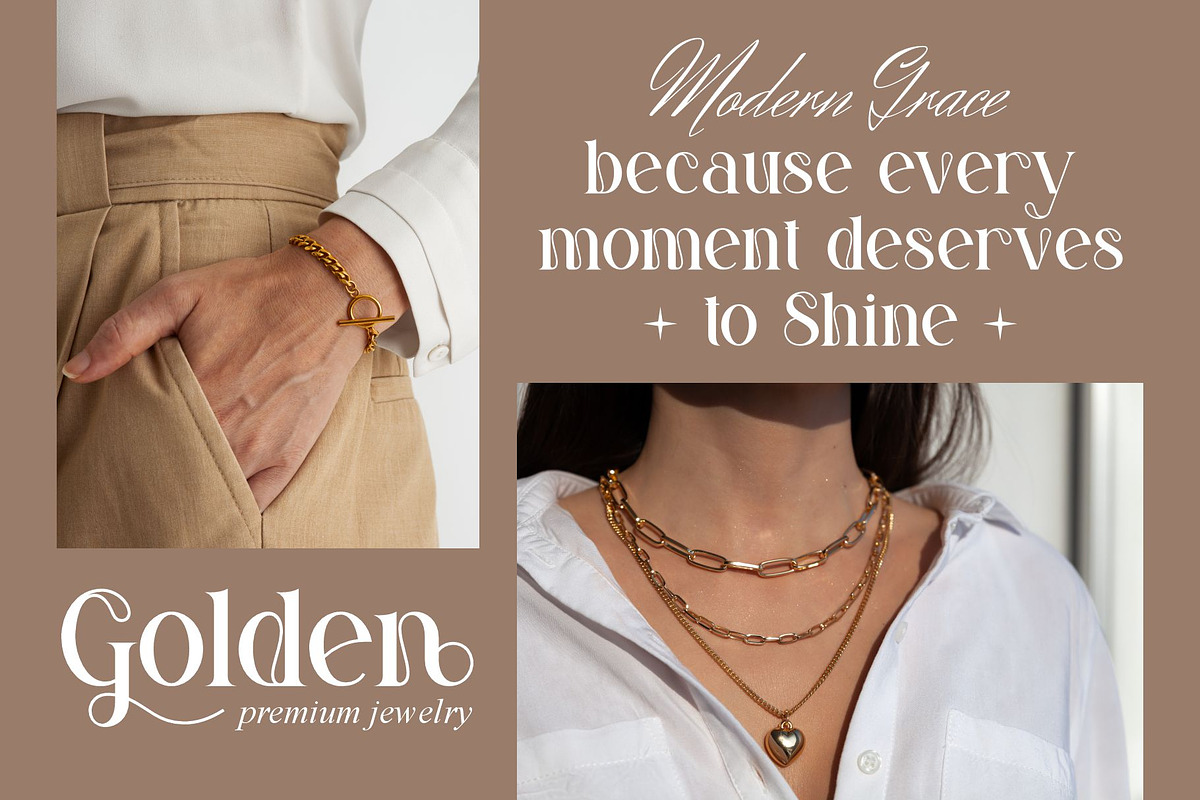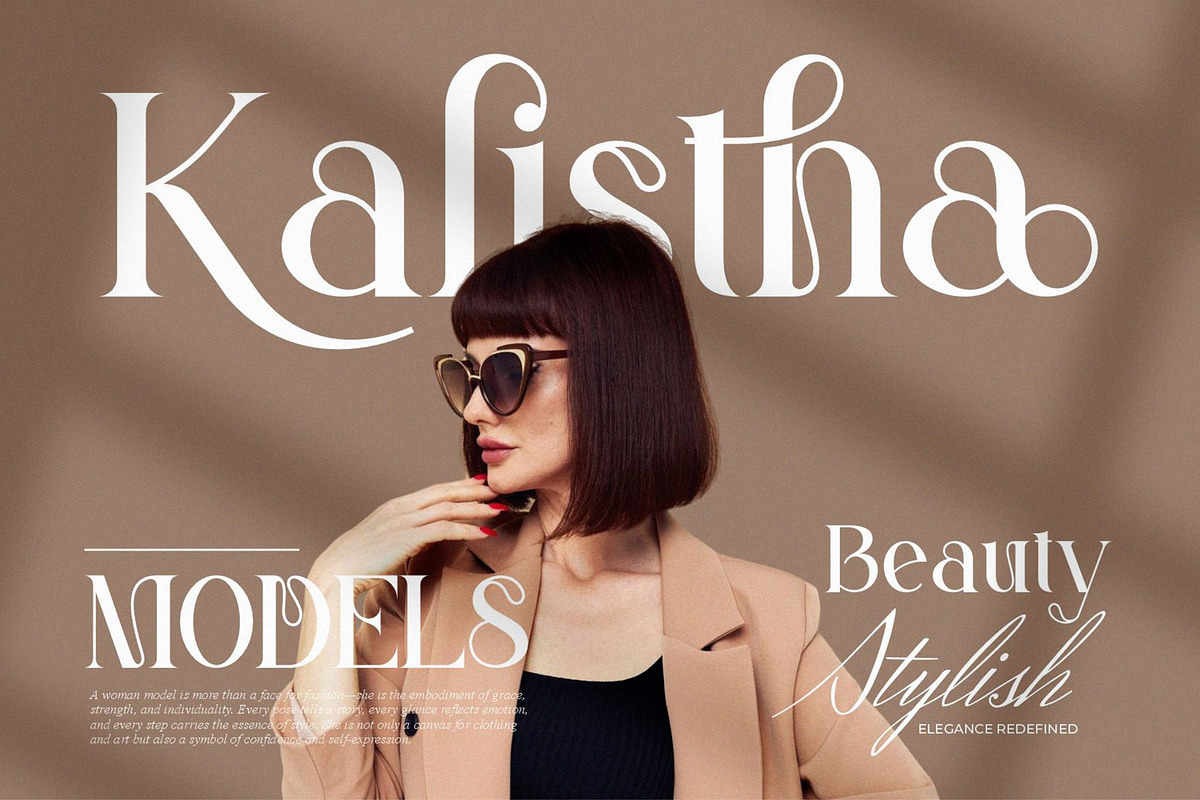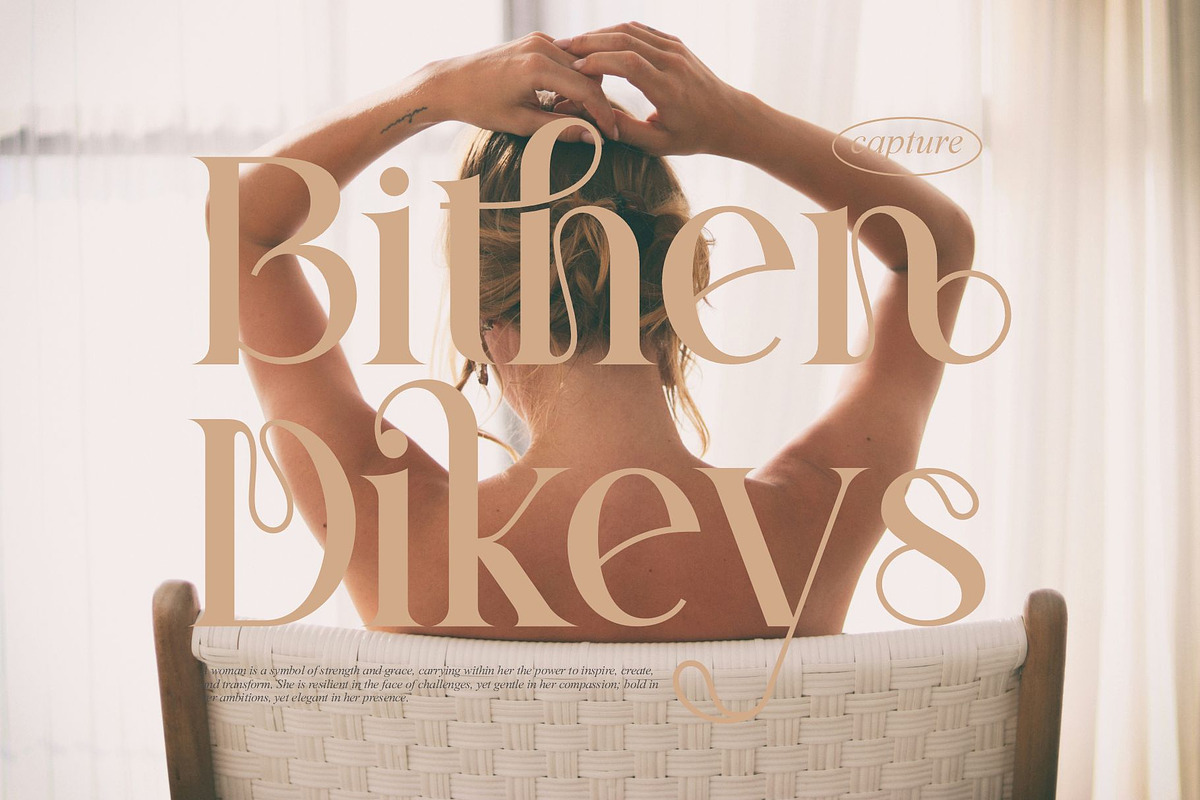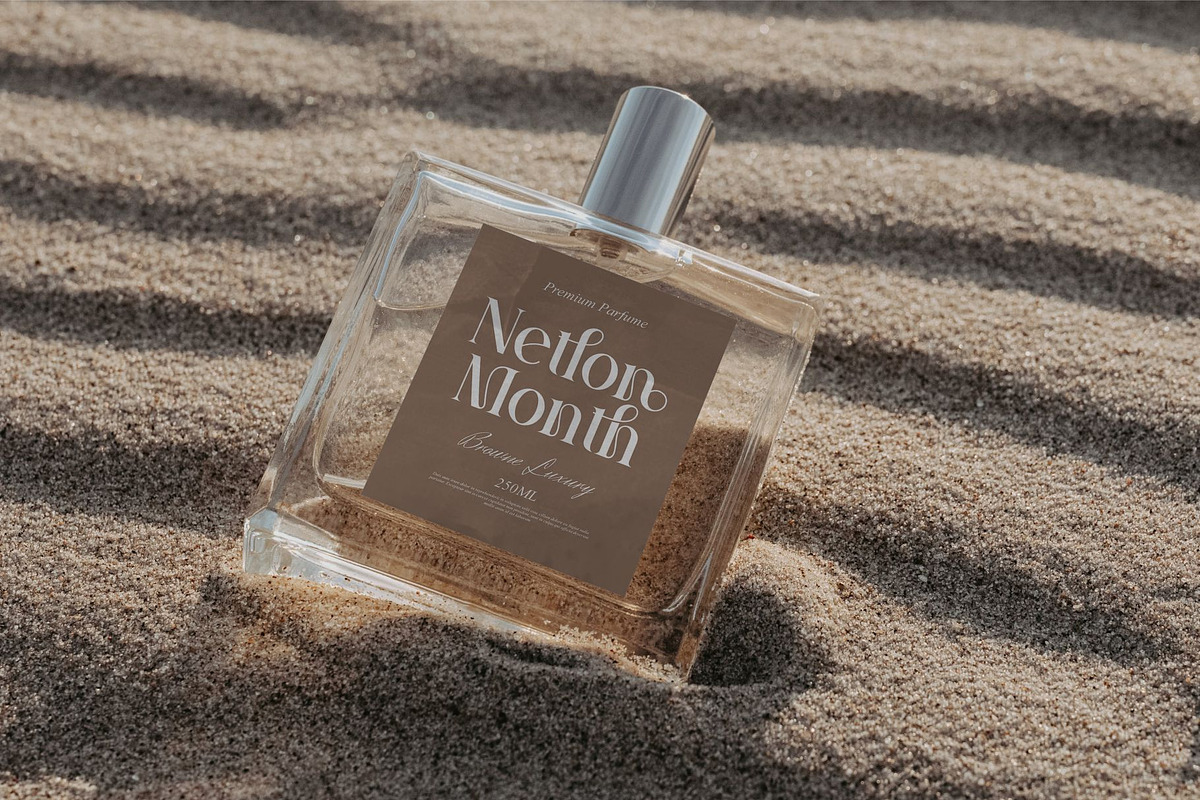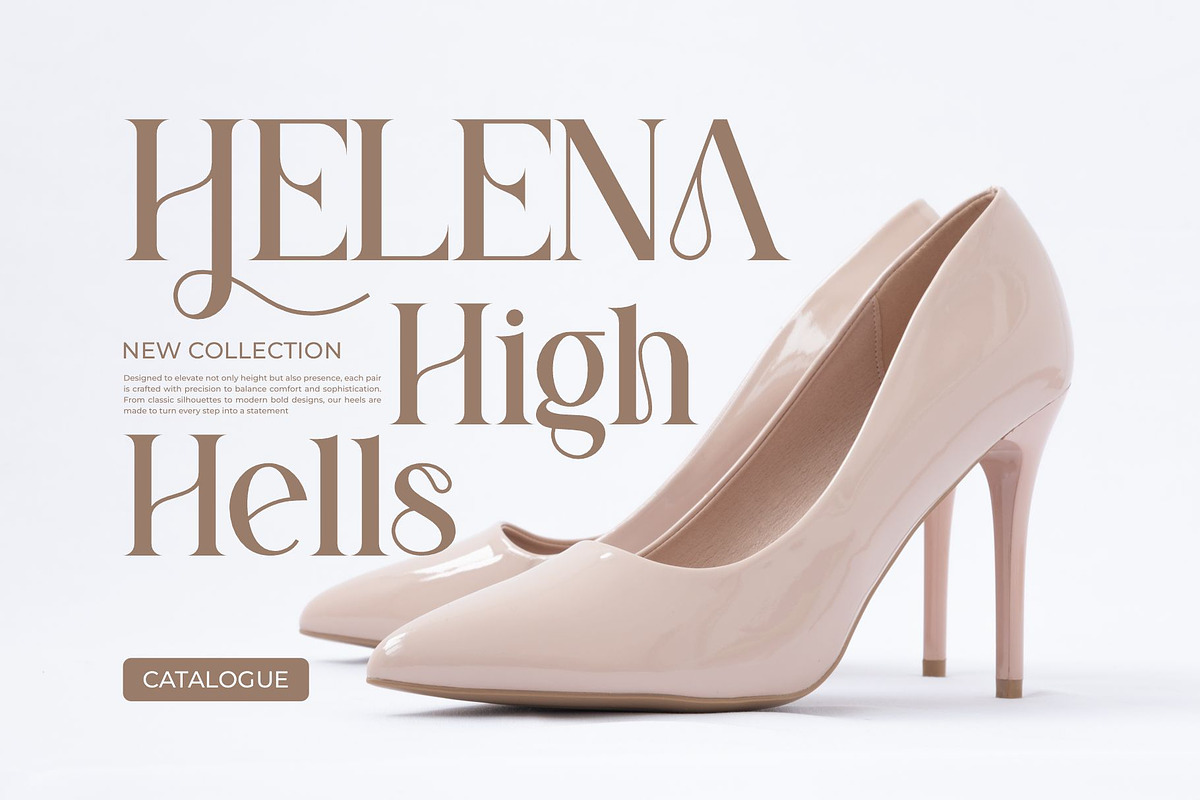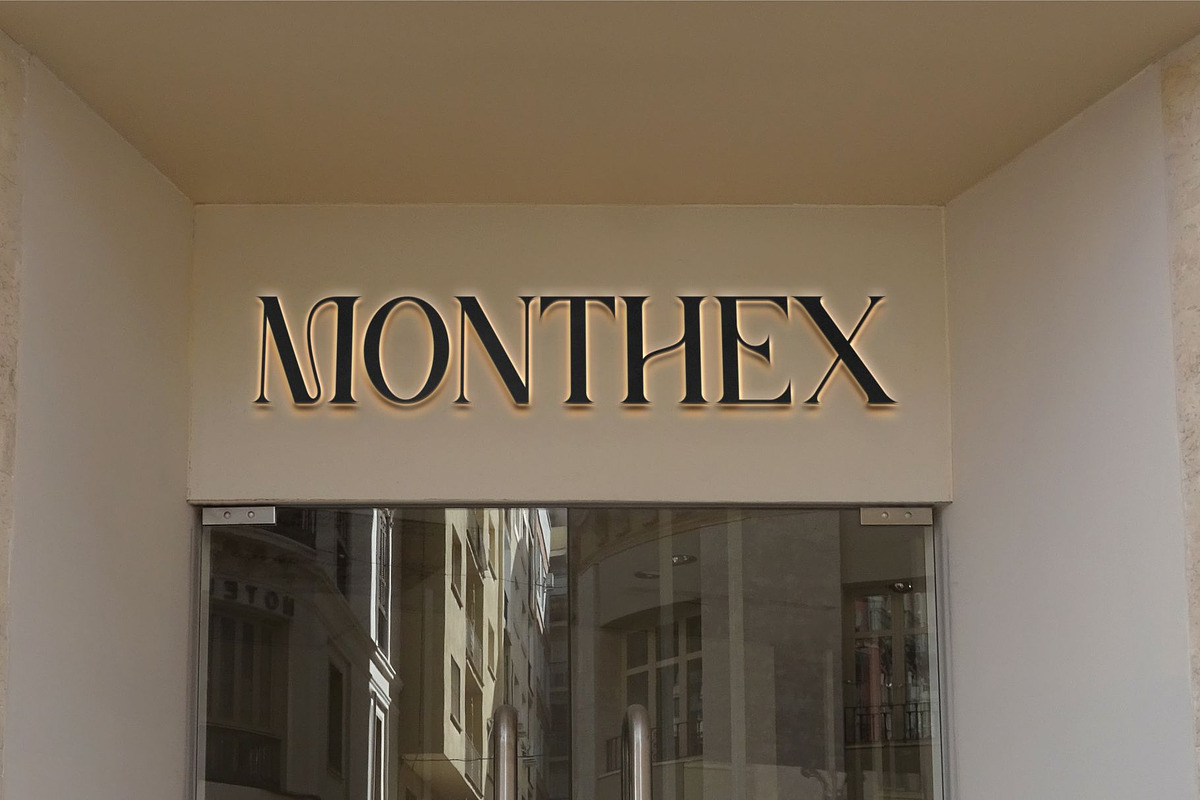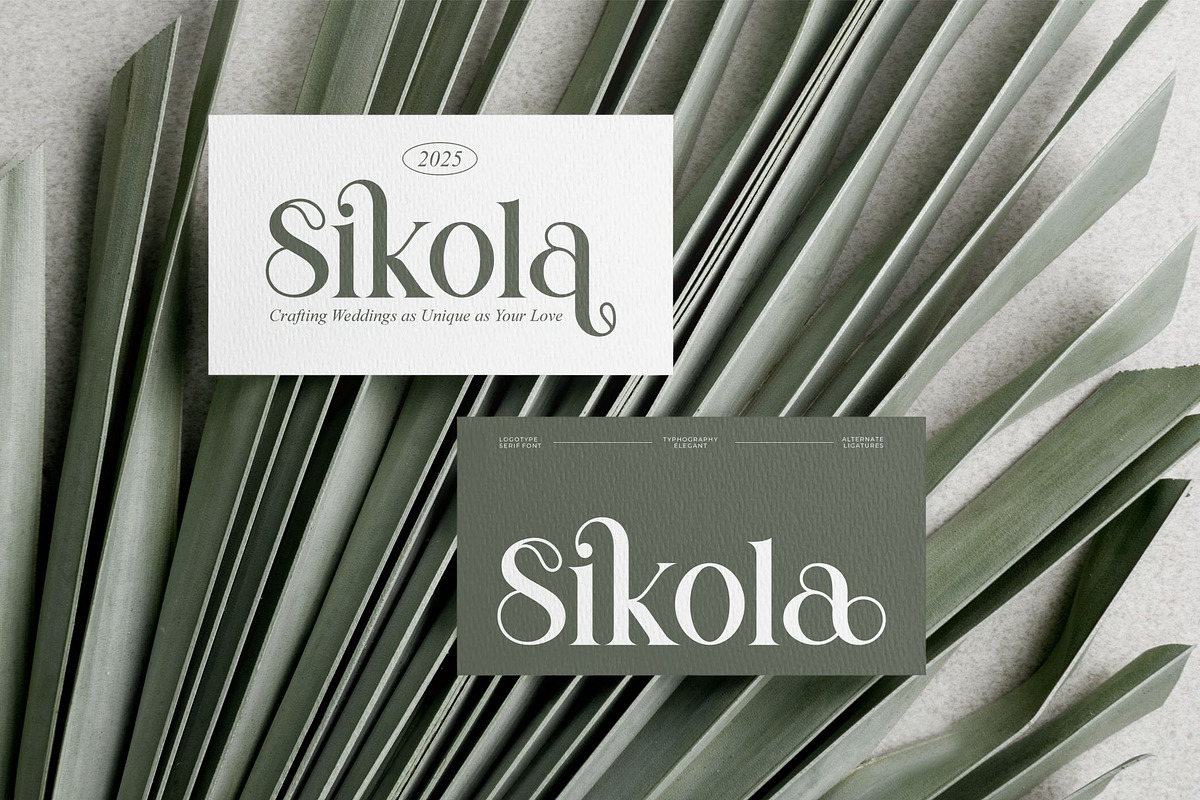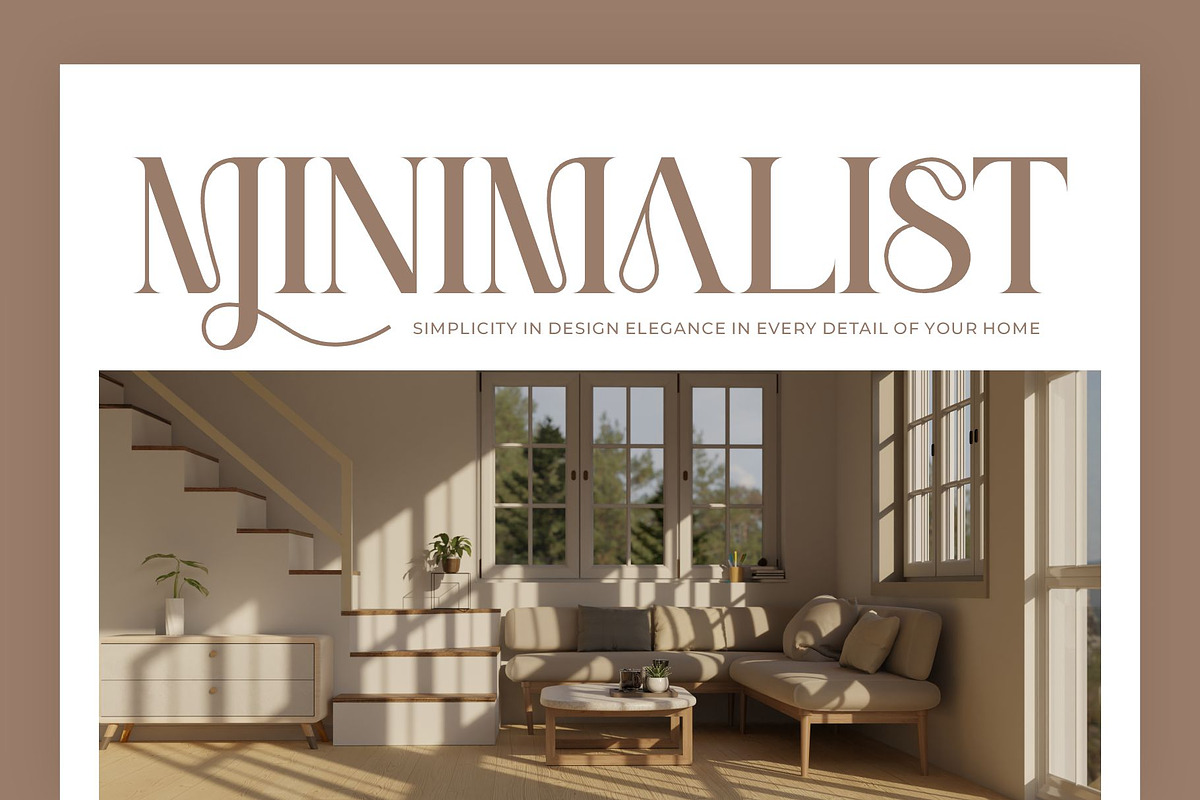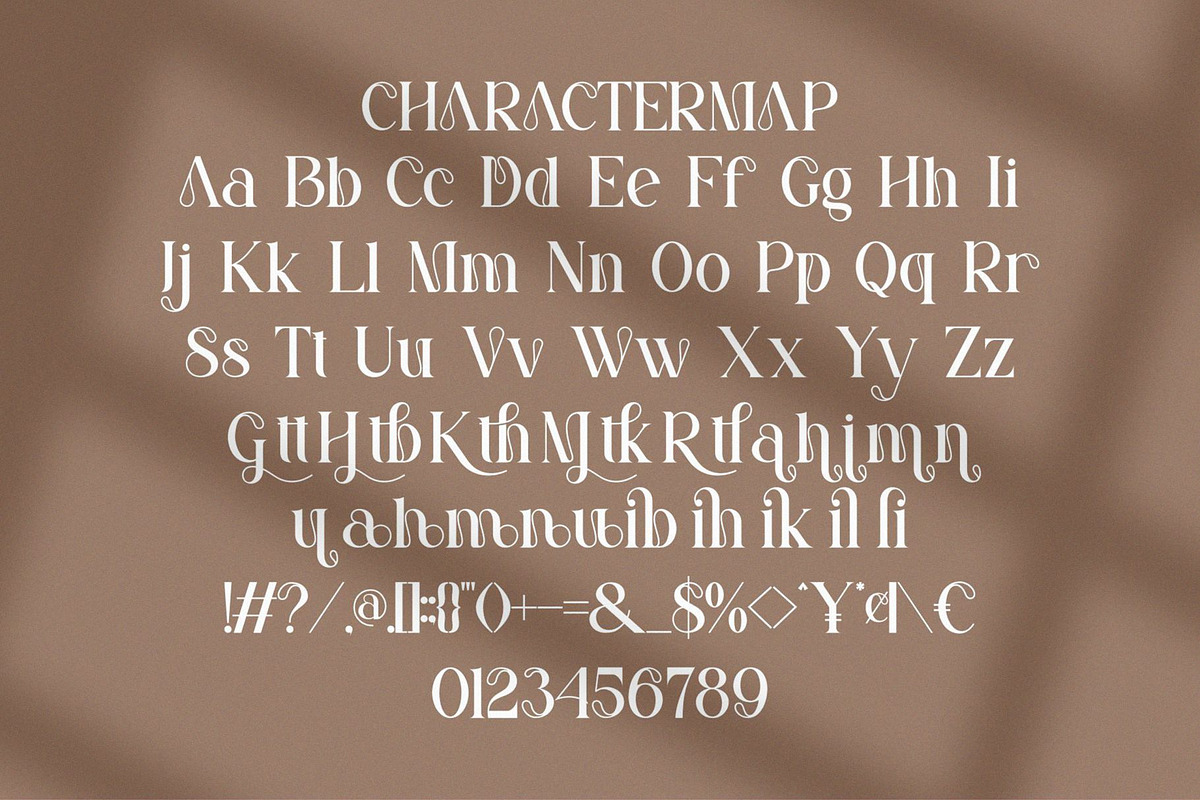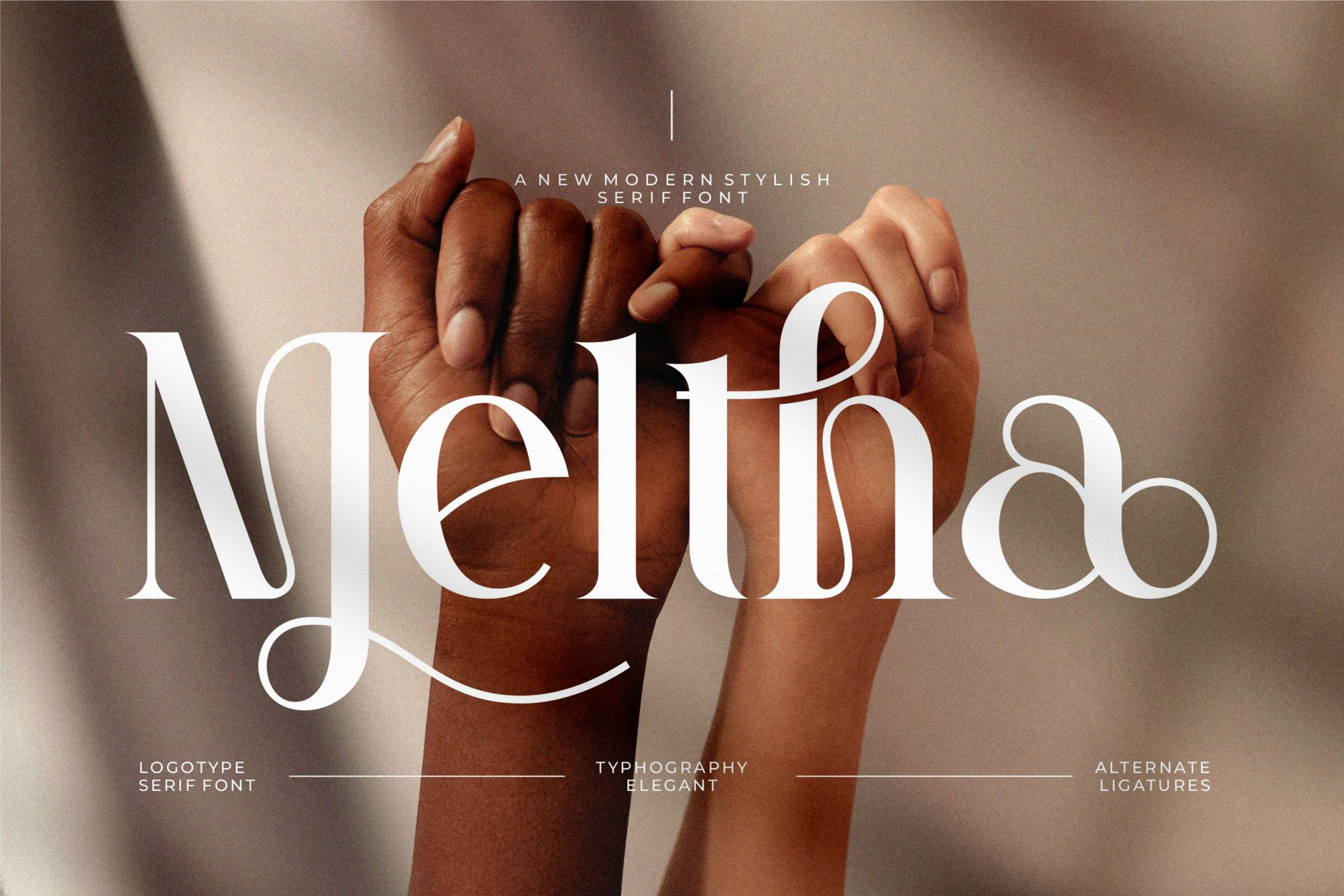
Meltha || Modern Classy Serif Font
Meltha Serif is a modern and minimalist font type for all branding and logo designs. This modern and minimalist Serif font has a beautiful character. This font is suitable for invitation card designs, cool logos, movie titles, movie names, business cards, book titles, brand names, and various other designs. Meltha Serif is a smooth serif font that exudes sophistication and the moment. Its stylish ligatures make this font a perfect partner for any project.